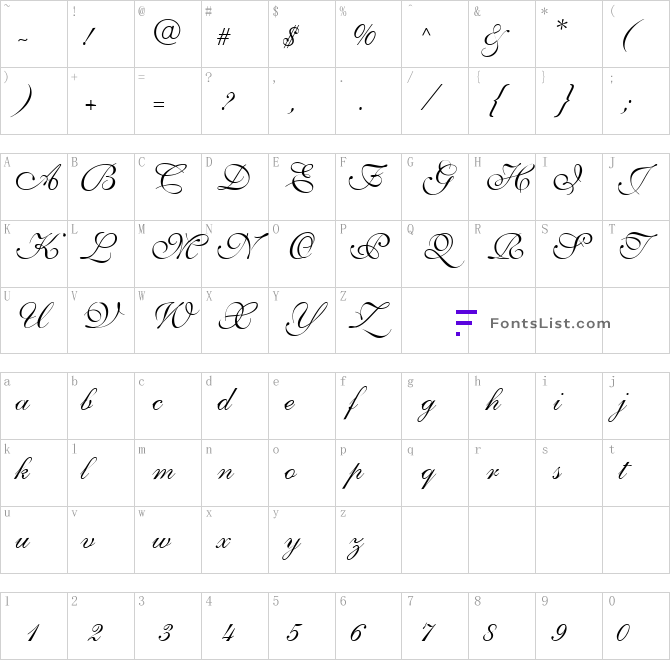
- Font Name:Allegretto Script Two
Allegretto-Script-Two.ttf is a very beautiful artistic font, Allegretto-Script-Two.ttf is widely used in the design and printing of various books and pictures,Allegretto-Script-Two.ttf has a strong visual impact,Allegretto-Script-Two.ttf is a commonly used font in newspapers, magazines and books, and is used in posters, e-commerce Poster design, store design, logo design, font design and other fields.Allegretto-Script-Two.